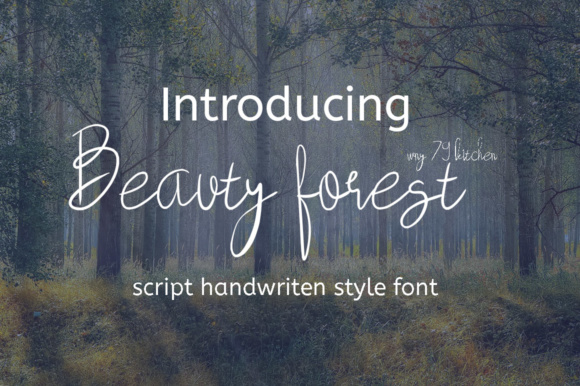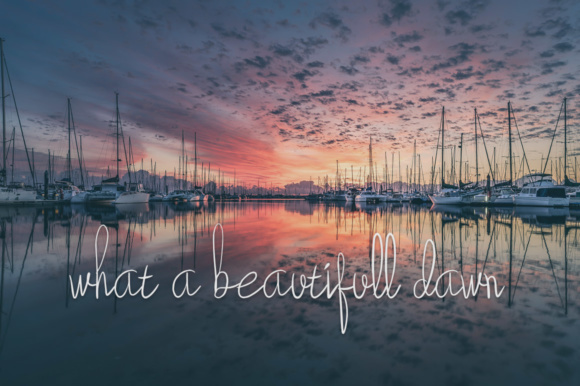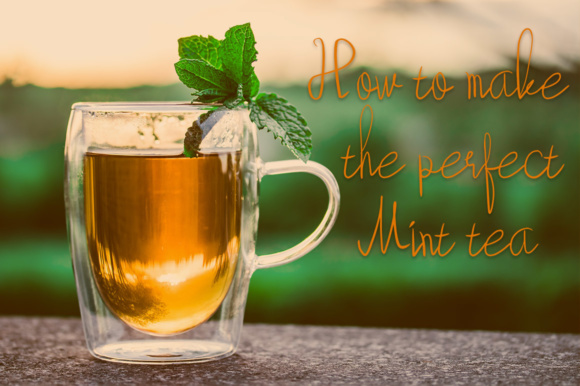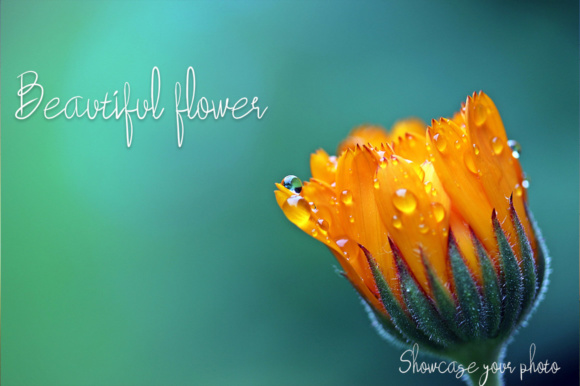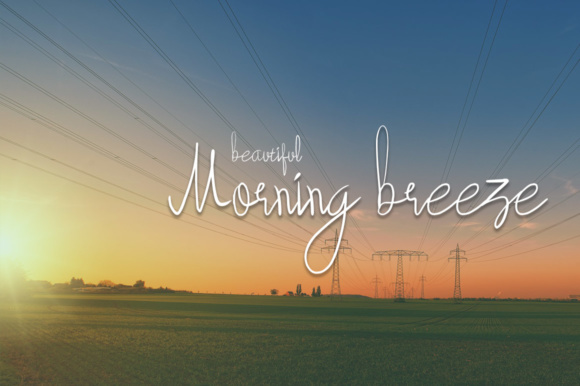
Beauty Forest Font
About Beauty Forest Font
Beauty forest is a calm, beautiful, handwritten font that is perfect for a wide range of projects. This handwritten font is great for your works or product as a signature style that can add a unique feel in all of your works.